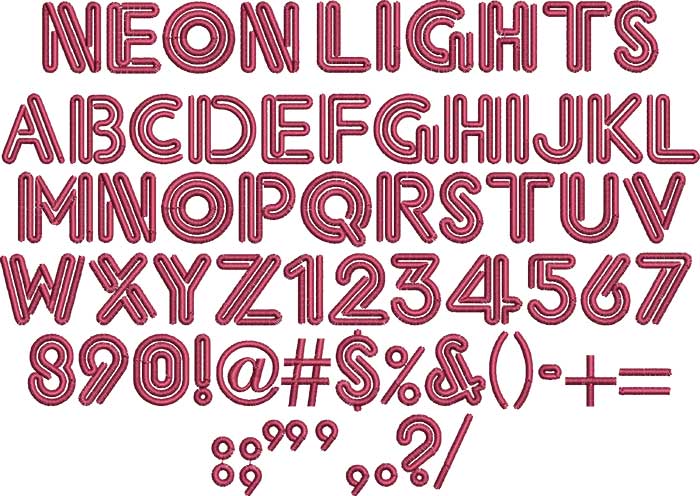
BX Embroidery Font: Neon Lights
BX Embroidery Font: Neon Lights Font Bundle (4 sizes) is a flourescent tube style machine embroidery font that includes A-Z, a-z, 0-9 and punctuation; 4 sizes.
BX Embroidery Font: Neon Lights is a fluorescent tube style machine embroidery font that includes A-Z, a-z, 0-9 and the following punctuation: !@#%&*-+=:;”‘,.?/ (79 total characters).